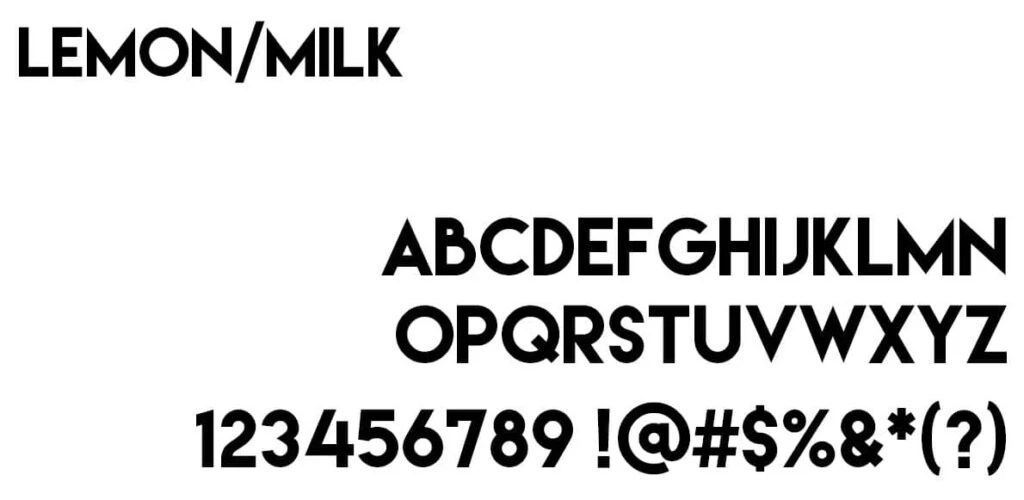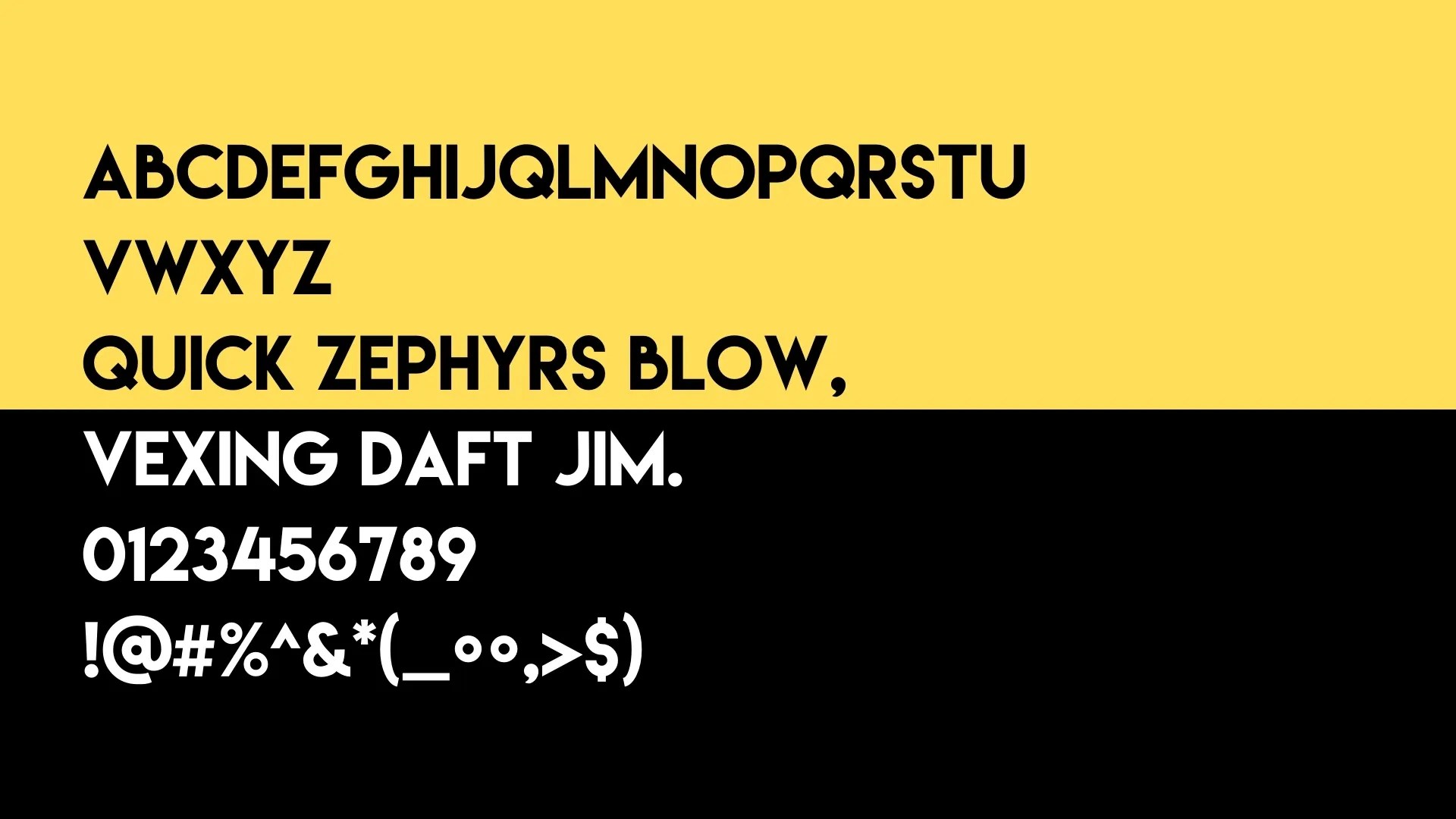
Lemon Milk Font . You can download the font files, preview the characters, and create text graphics with different colors and effects using the online tool. Lemon milk is a geometric sans serif font by marsnev. Download lemon milk font, a custom preview font with 8 styles and 18 font files. Download the lemon milk font by marsnev. Moreover, it now has 18 fonts + 2 variable fonts ranging from thin. Lemon milk font is a modern geometric sans serif typeface created by marsnev. Download lemon milk font, a modern and popular free font created by muhammad ariq syauqi. Get lemon milk with lowercases, covering extended latin, cyrillic, and greek. Lemon milk is a sans serif lettering font designed by marsnev. It has 8 styles, covering extended latin, cyrillic, and greek, and supports variable fonts. Lemon milk has been downloaded 546,565 times. It is available for free download and commercial use. For lowercases, extended latin, cyrillic, and greek,. It has 8 styles and 2 variable fonts, and.
Download lemon milk font, a modern and popular free font created by muhammad ariq syauqi. Download the lemon milk font by marsnev. Download lemon milk font, a custom preview font with 8 styles and 18 font files. For lowercases, extended latin, cyrillic, and greek,. Lemon milk font is a modern geometric sans serif typeface created by marsnev. You can download the font files, preview the characters, and create text graphics with different colors and effects using the online tool. Lemon milk has been downloaded 546,565 times. It has 8 styles and 2 variable fonts, and. Get lemon milk with lowercases, covering extended latin, cyrillic, and greek. It is available for free download and commercial use.
Lemon Milk Font Lemon milk is a geometric sans serif font by marsnev. Download lemon milk font, a custom preview font with 8 styles and 18 font files. Lemon milk font is a modern geometric sans serif typeface created by marsnev. It has 8 styles and 2 variable fonts, and. It is available for free download and commercial use. Download lemon milk font, a modern and popular free font created by muhammad ariq syauqi. Lemon milk is a sans serif lettering font designed by marsnev. You can download the font files, preview the characters, and create text graphics with different colors and effects using the online tool. For lowercases, extended latin, cyrillic, and greek,. Moreover, it now has 18 fonts + 2 variable fonts ranging from thin. Get lemon milk with lowercases, covering extended latin, cyrillic, and greek. Lemon milk is a geometric sans serif font by marsnev. It has 8 styles, covering extended latin, cyrillic, and greek, and supports variable fonts. Lemon milk has been downloaded 546,565 times. Download the lemon milk font by marsnev.
Lemon Milk Font Download FREE Lemon Milk Font It has 8 styles and 2 variable fonts, and. Lemon milk has been downloaded 546,565 times. Download the lemon milk font by marsnev. It is available for free download and commercial use. Lemon milk is a geometric sans serif font by marsnev. It has 8 styles, covering extended latin, cyrillic, and greek, and supports variable fonts. Lemon milk font is. Lemon Milk Font.
Lemon Milk Font Text Effect and Logo Design Font Lemon Milk Font It is available for free download and commercial use. Get lemon milk with lowercases, covering extended latin, cyrillic, and greek. Download lemon milk font, a modern and popular free font created by muhammad ariq syauqi. It has 8 styles and 2 variable fonts, and. It has 8 styles, covering extended latin, cyrillic, and greek, and supports variable fonts. Lemon milk. Lemon Milk Font.
Lemon Milk Font Download Dafont Online Lemon Milk Font Get lemon milk with lowercases, covering extended latin, cyrillic, and greek. Download the lemon milk font by marsnev. It is available for free download and commercial use. It has 8 styles, covering extended latin, cyrillic, and greek, and supports variable fonts. Moreover, it now has 18 fonts + 2 variable fonts ranging from thin. Download lemon milk font, a modern. Lemon Milk Font.
Lemon Milk Font Free Download Lemon Milk Font Lemon milk has been downloaded 546,565 times. Lemon milk is a geometric sans serif font by marsnev. It has 8 styles and 2 variable fonts, and. Get lemon milk with lowercases, covering extended latin, cyrillic, and greek. For lowercases, extended latin, cyrillic, and greek,. It has 8 styles, covering extended latin, cyrillic, and greek, and supports variable fonts. Download lemon. Lemon Milk Font.
Lemon Milk Font Text Effect and Logo Design Font Lemon Milk Font Lemon milk font is a modern geometric sans serif typeface created by marsnev. Download lemon milk font, a custom preview font with 8 styles and 18 font files. Lemon milk is a sans serif lettering font designed by marsnev. Get lemon milk with lowercases, covering extended latin, cyrillic, and greek. You can download the font files, preview the characters, and. Lemon Milk Font.
Lemon Milk Font Free Fonts Vault Lemon Milk Font Get lemon milk with lowercases, covering extended latin, cyrillic, and greek. It has 8 styles, covering extended latin, cyrillic, and greek, and supports variable fonts. Moreover, it now has 18 fonts + 2 variable fonts ranging from thin. For lowercases, extended latin, cyrillic, and greek,. It has 8 styles and 2 variable fonts, and. Lemon milk is a geometric sans. Lemon Milk Font.
Lemon Milk Font Text Effect and Logo Design Font Lemon Milk Font Lemon milk font is a modern geometric sans serif typeface created by marsnev. Download lemon milk font, a custom preview font with 8 styles and 18 font files. Lemon milk has been downloaded 546,565 times. Moreover, it now has 18 fonts + 2 variable fonts ranging from thin. It has 8 styles, covering extended latin, cyrillic, and greek, and supports. Lemon Milk Font.
Lemon/Milk Font by CaughtBetweenFonts on DeviantArt Lemon Milk Font Get lemon milk with lowercases, covering extended latin, cyrillic, and greek. Lemon milk font is a modern geometric sans serif typeface created by marsnev. Moreover, it now has 18 fonts + 2 variable fonts ranging from thin. It has 8 styles, covering extended latin, cyrillic, and greek, and supports variable fonts. Lemon milk is a sans serif lettering font designed. Lemon Milk Font.
Lemon Milk Light Font Free Download Lemon Milk Font It has 8 styles, covering extended latin, cyrillic, and greek, and supports variable fonts. It is available for free download and commercial use. Download lemon milk font, a custom preview font with 8 styles and 18 font files. It has 8 styles and 2 variable fonts, and. Lemon milk is a geometric sans serif font by marsnev. For lowercases, extended. Lemon Milk Font.